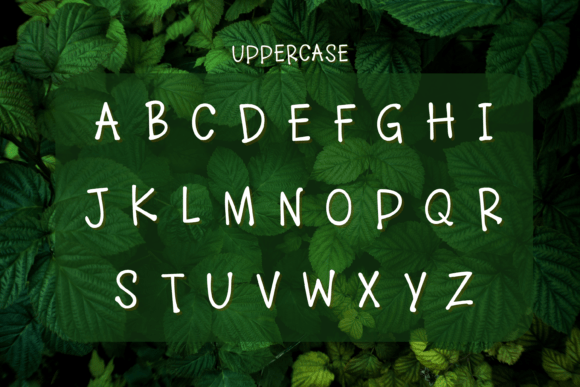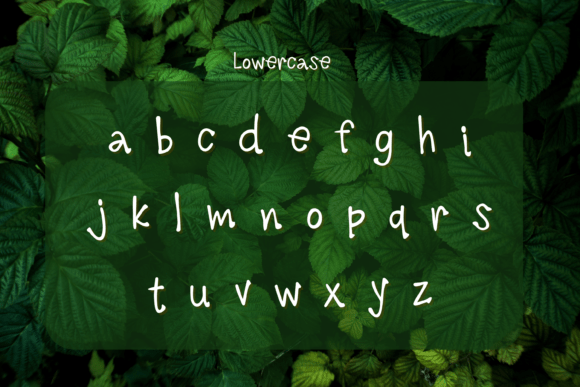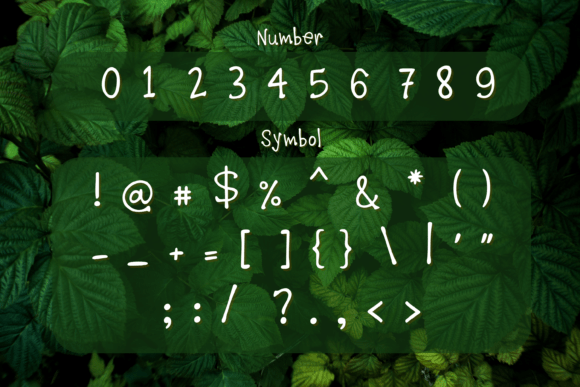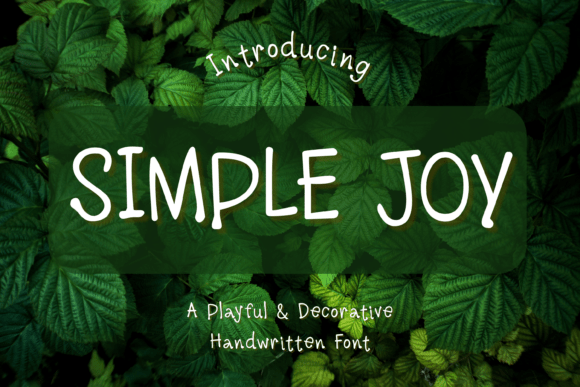
Introduction to Simplejoy Font
A playful & decorative handwritten font for crafts, quotes, and designs.
Bring happiness to your designs with Simple Joy, a playful handwritten font that combines charm and simplicity With its casual strokes and fun personality, this font is perfect for craft projects, t-shirt designs, quotes, invitations, logos, stickers, scrapbooks, and more.
Key Features of Simplejoy Font
Why Choose Simplejoy Font?
Simplejoy Font offers exceptional quality and versatility, making it a valuable addition to your design toolkit. Whether you’re creating for personal projects or commercial use, Simplejoy Font delivers professional results.